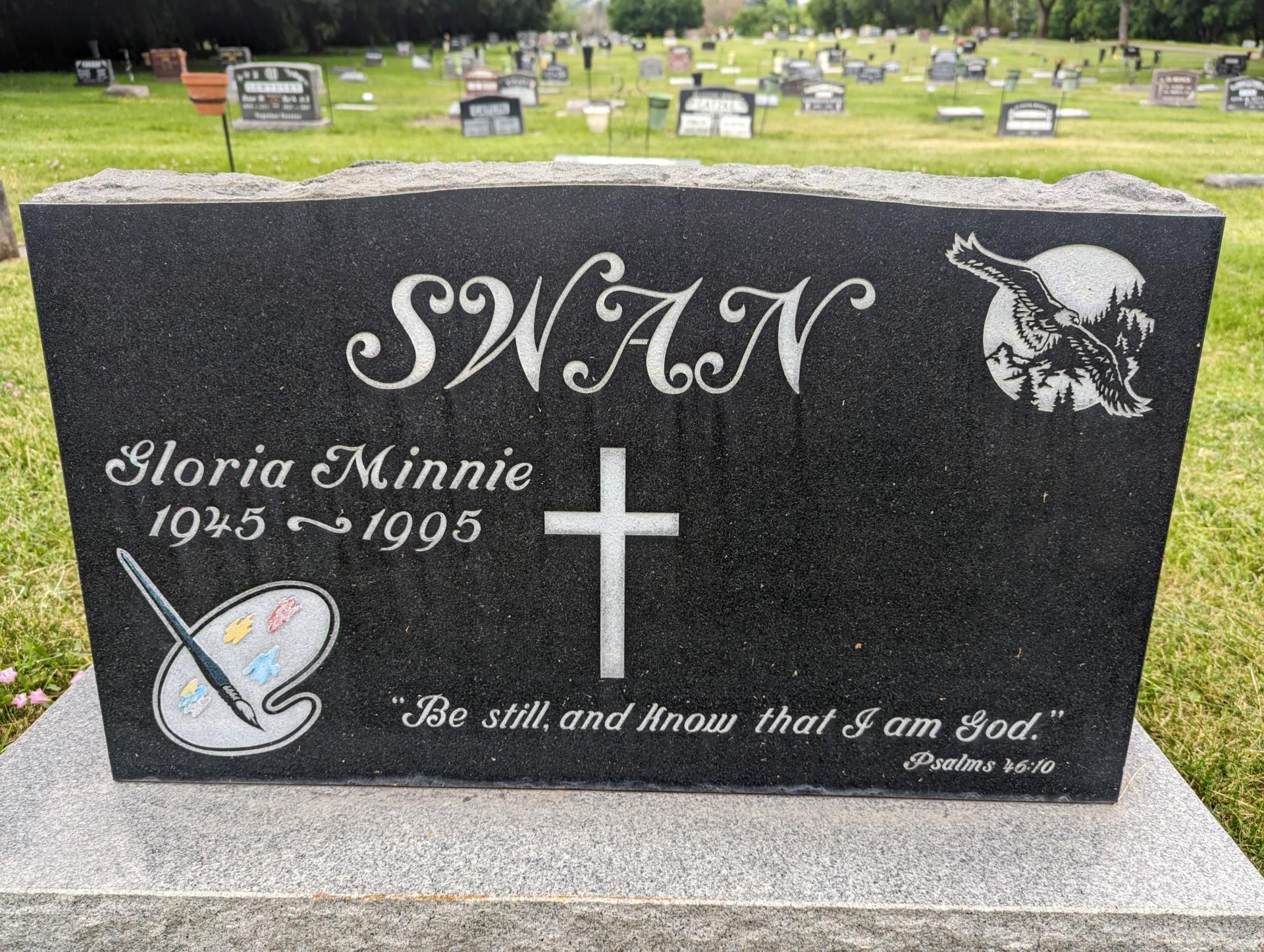
I have no clue what the cursive font on this stone is. Does anybody have any idea or know of any similar ones?
Hi Kim, while the artist may have borrowed some letters or parts of letters from existing fonts, this is definitely hand-drawn lettering. You can see an amusing mistake on the ‘i’ in “still”, where the half serifs on the stroke are going the wrong direction.
This would be best matched by creating custom lettering in the same style rather than trying to piece something together from similar existing fonts.